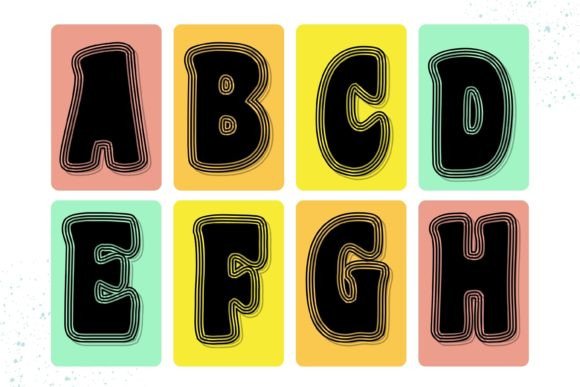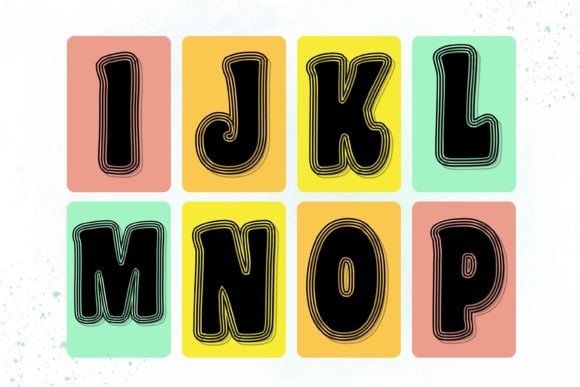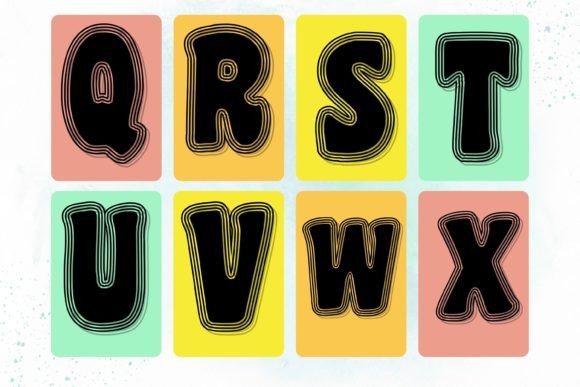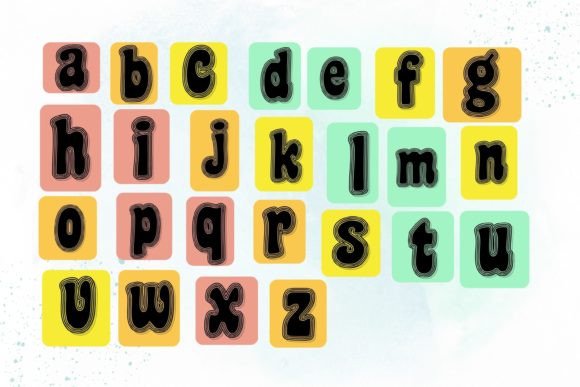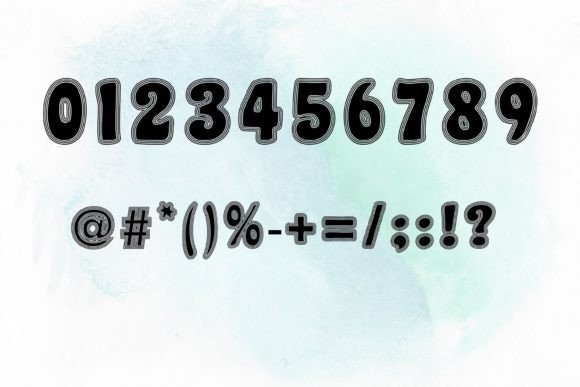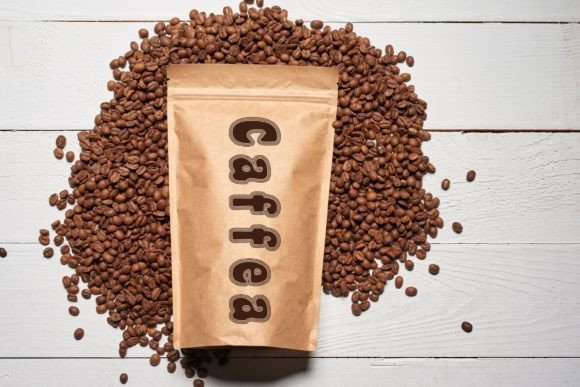
Around Font: The Timeless Charm of a Retro Display Typeface
In the world of typography, few fonts manage to evoke a sense of nostalgia and comfort as effectively as Around Font. This simple, adorable, and charmingly timeless display typeface has been making waves in the design community, and for good reason. Its unique blend of simplicity, rounded edges, and legibility makes it an ideal choice for designers and crafters looking to add a touch of retro charm to their projects.
The Design of Around Font
Around Font’s design is characterized by its clean lines, simple shapes, and rounded edges. This thoughtful design creates a sense of warmth and approachability, making it perfect for projects that require a friendly and inviting tone. The font’s simplicity also ensures that it remains legible, even at smaller sizes, making it a versatile option for a wide range of applications.
The Benefits of Using Around Font
So, what makes Around Font such a great choice for designers and crafters? Here are just a few benefits of using this charming display typeface:
• Retro Charm: Around Font’s vintage-inspired design makes it perfect for projects that require a retro or nostalgic feel. Whether you’re creating a logo, packaging, or graphics, this font is sure to evoke a sense of classic charm.
• Legibility: Despite its delicate design, Around Font remains highly legible, even at smaller sizes. This makes it an excellent choice for projects that require a clear and easy-to-read font.
• Flexibility: Around Font is a flexible option for a wide range of creative efforts. Whether you’re working on a logo, packaging, or graphics, this font is sure to adapt to your needs.
• Emotional Connection: Around Font’s sweet and charming design creates an emotional connection with the viewer, making it perfect for projects that require a friendly and approachable tone.
Using Around Font in Your Projects
So, how can you use Around Font in your projects? Here are a few ideas to get you started:
• Logos: Around Font’s unique design makes it perfect for creating logos that require a touch of retro charm. Whether you’re working on a brand identity or a personal project, this font is sure to make a lasting impression.
• Packaging: Add a touch of vintage charm to your packaging with Around Font. This font is perfect for creating labels, tags, and other packaging materials that require a friendly and approachable tone.
• Graphics: Around Font is also a great choice for creating graphics, such as posters, flyers, and social media graphics. Its legibility and charm make it perfect for conveying a message in a clear and visually appealing way.
Tips for Getting the Most Out of Around Font
Here are a few tips for getting the most out of Around Font:
• Experiment with Sizes: Around Font’s legibility makes it perfect for use at a wide range of sizes. Experiment with different sizes to find the one that works best for your project.
• Pair it with Other Fonts: Around Font pairs well with a variety of other fonts. Try pairing it with a bold sans-serif font for a striking contrast.
• Use it in Combination with Images: Around Font’s charm is enhanced when used in combination with images. Try pairing it with a vintage-inspired image for a unique and eye-catching design.
Around Font is a timeless and charming display typeface that is sure to bring a touch of retro charm to any project. Its simple design, rounded edges, and legibility make it an ideal choice for designers and crafters looking to create graphics, logos, and packaging with a vintage feel. With its flexibility, emotional connection, and nostalgic charm, Around Font is a font that is sure to become a staple in any designer’s toolkit.